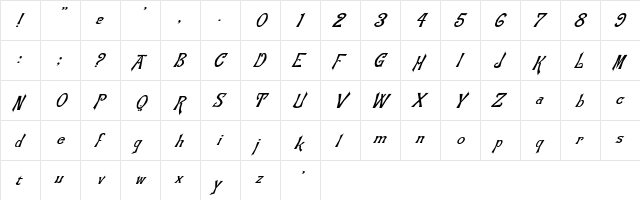
Flemish-Italic Regular Font Preview
Flemish-Italic Regular
Design Context for Flemish-Italic Typeface
Flemish-Italic is a composed and adaptable typeface that performs quietly and consistently across a wide range of design contexts. The dynamic lean of this cut emphasises speed and emphasis in any layout.
Pro Tip: Try Flemish-Italic for annotation and caption copy alongside an upright companion — the contrast in angle creates a dynamic but ordered typographic system.